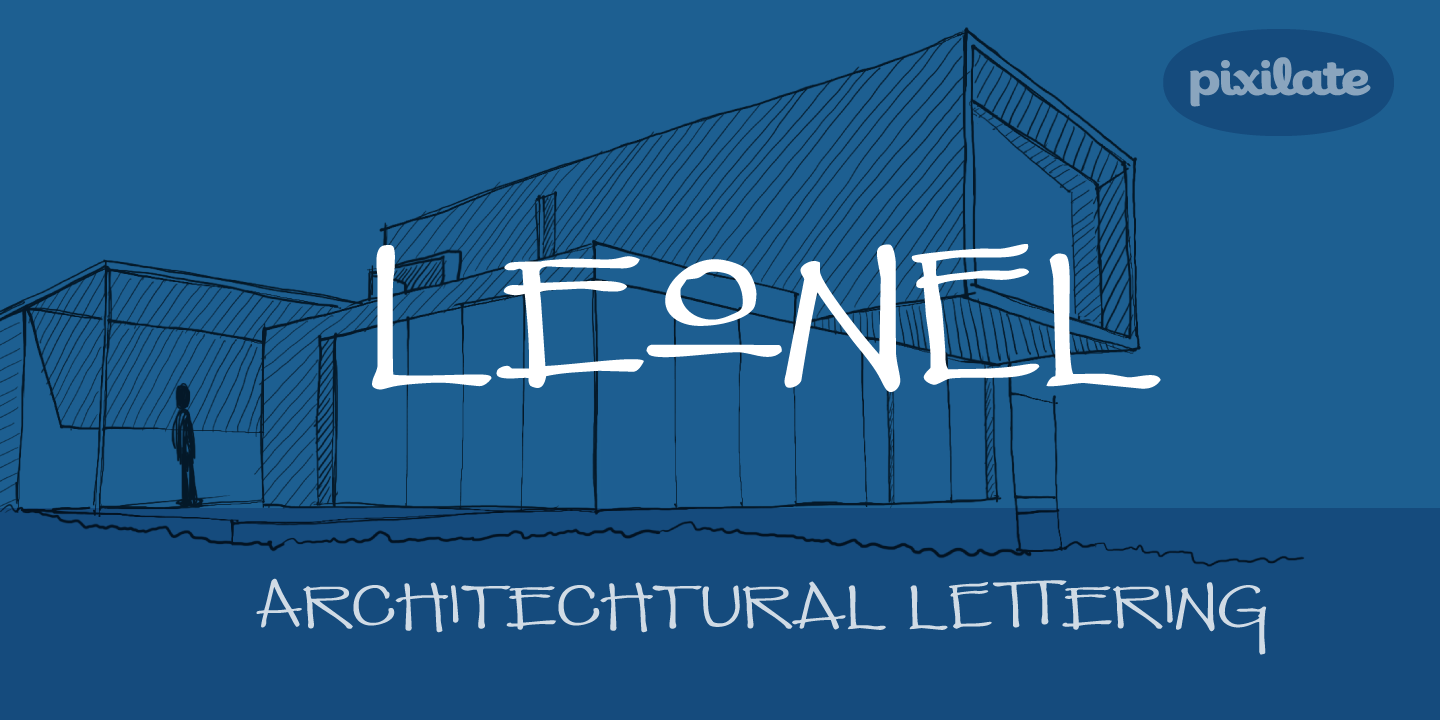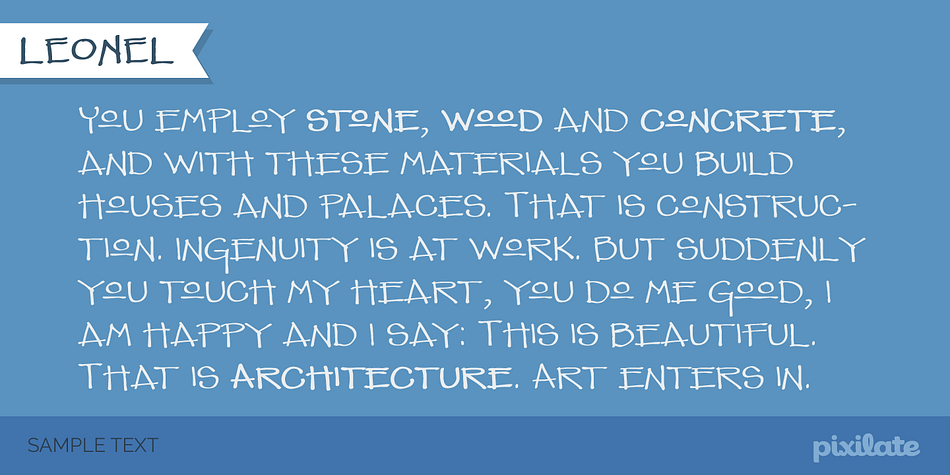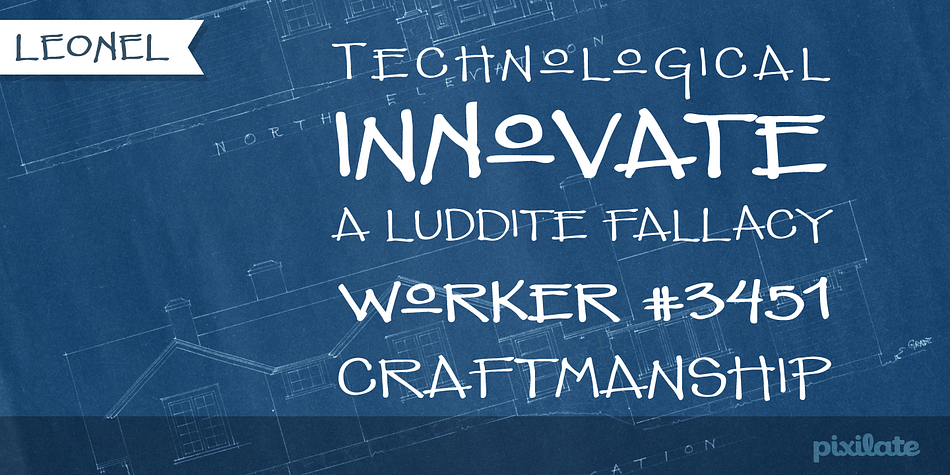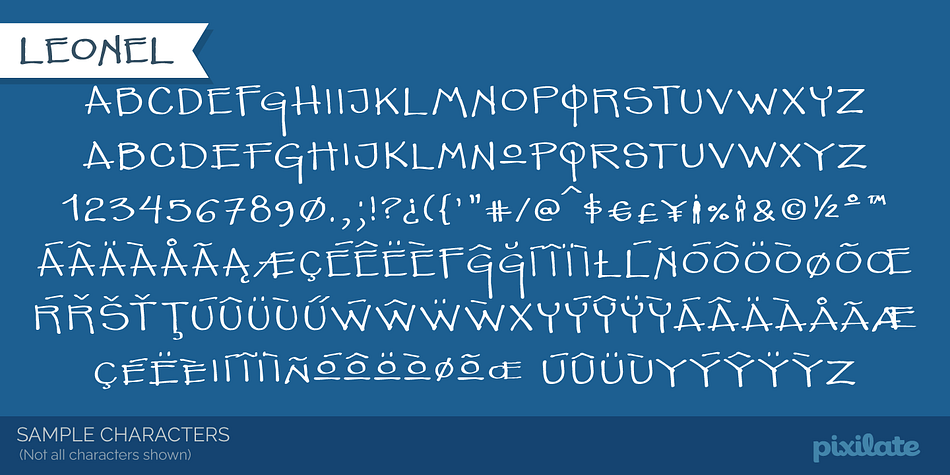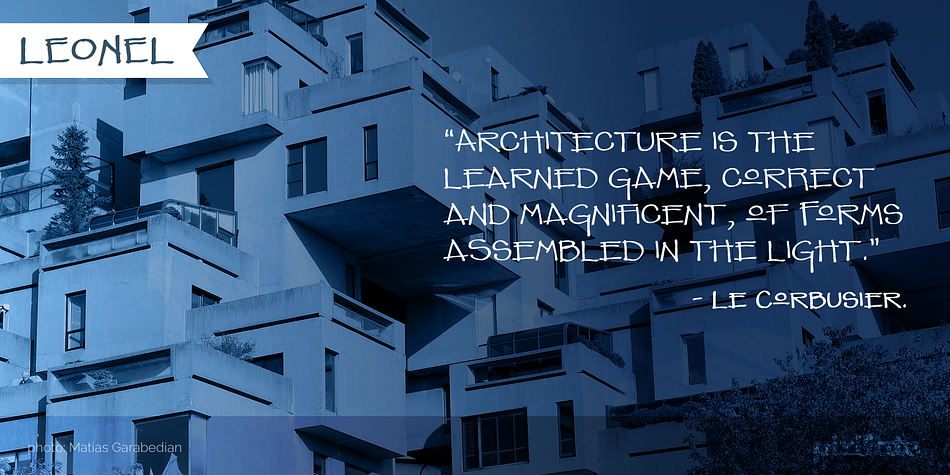
LEONEL
Leonel is a hand display font family. This typeface has two styles and was published by Pixilate.
Leonel is based on an achitect’s handwriting. It is an all-caps design made with a calligraphic pen.